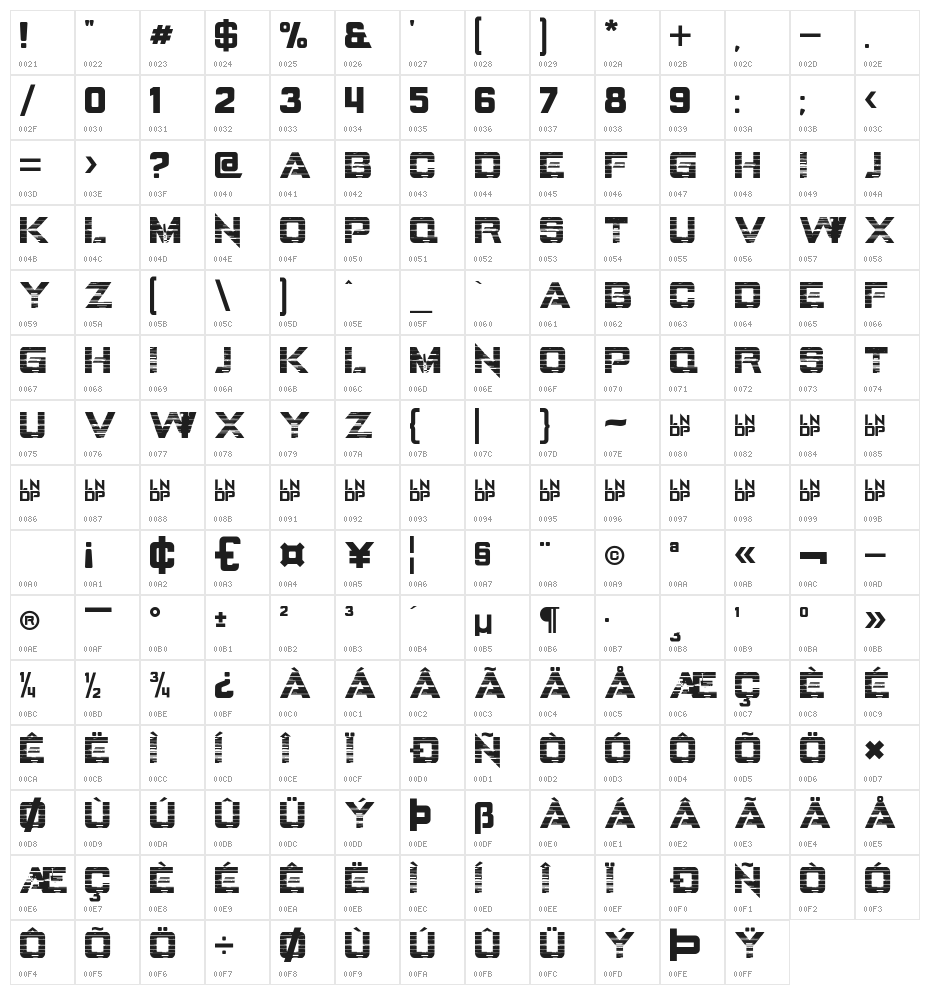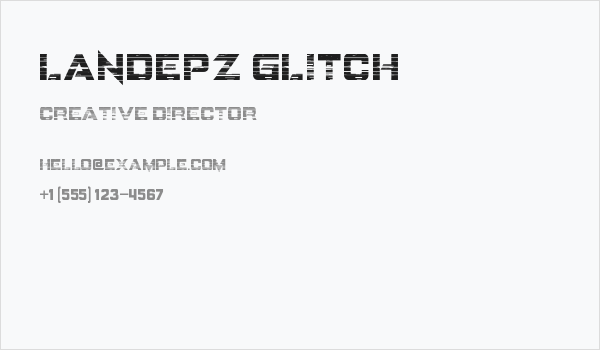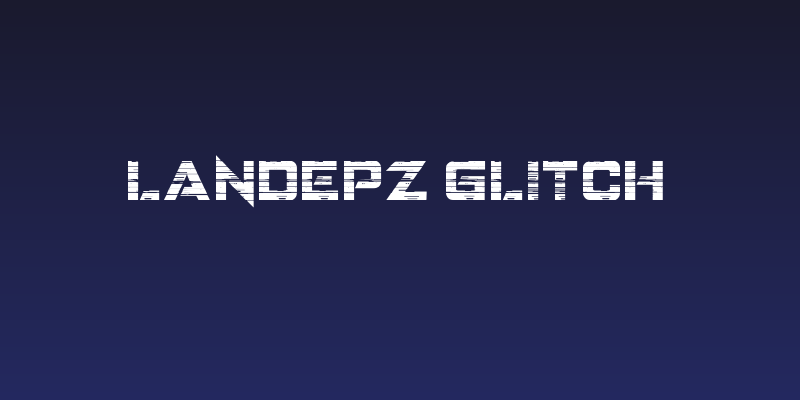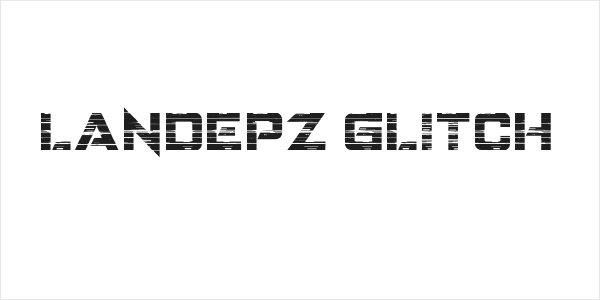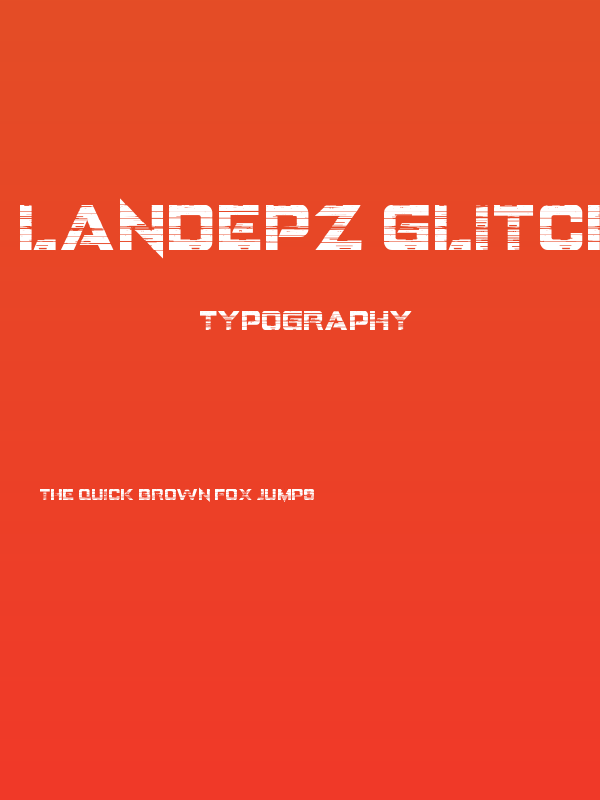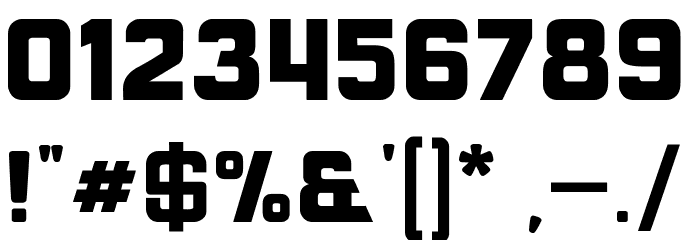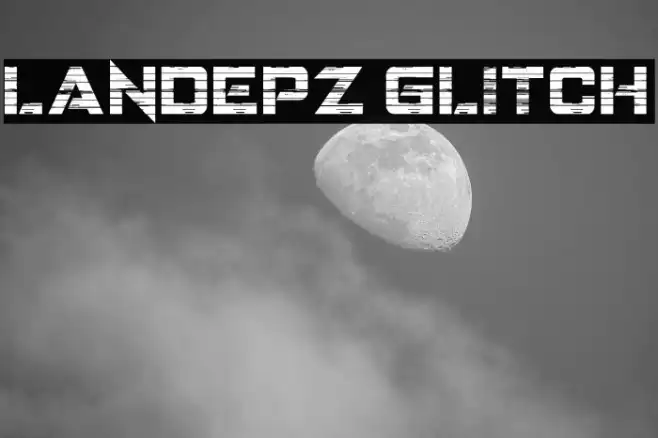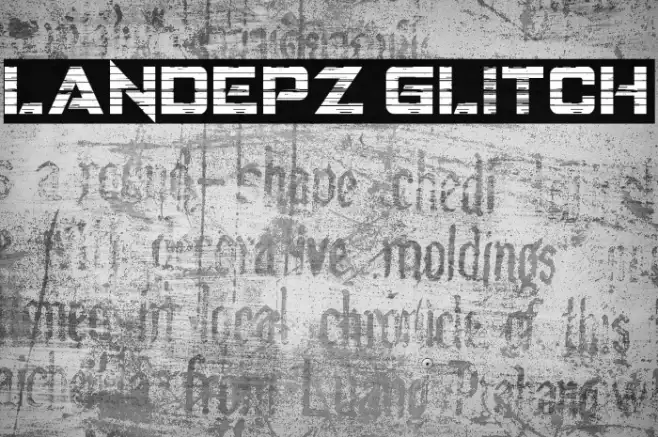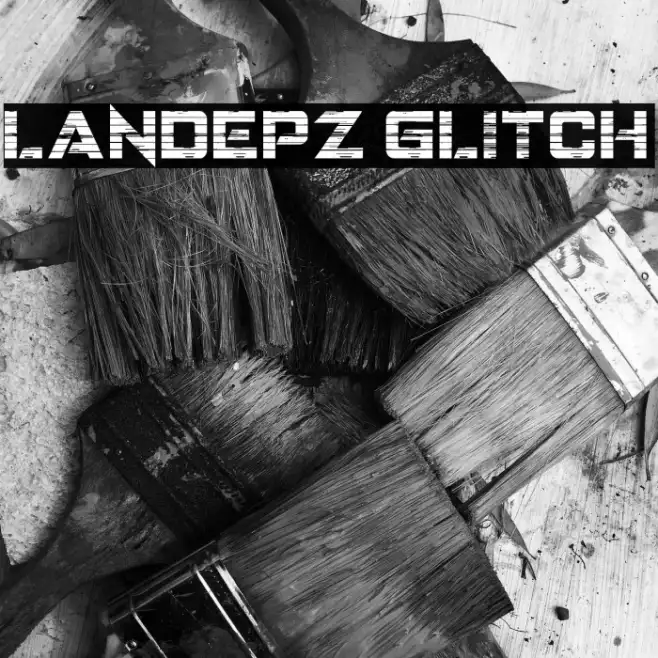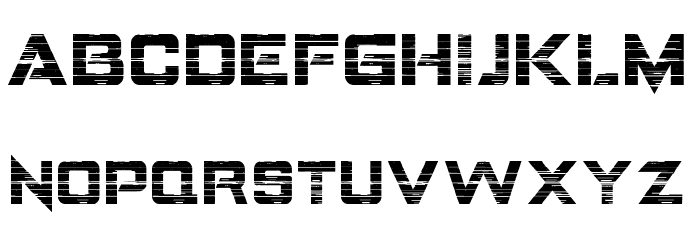
LANDEPZ GLITCH Font
LANDEPZ GLITCH Description
This font features a bold, glitch-inspired design with a digital, distorted aesthetic. The uppercase letters are characterized by horizontal lines that create a fragmented appearance, reminiscent of a digital glitch or static interference. The numbers and special characters maintain this theme, offering a cohesive look across all characters. The font's bold weight and unique style make it stand out, ideal for projects that require a modern, edgy feel. Its distinct appearance is perfect for digital art, tech-related branding, or any creative project that seeks to convey a sense of modernity and innovation.
| Proposed Projects | Ideal for digital art, tech branding, video game design, and modern advertising. |